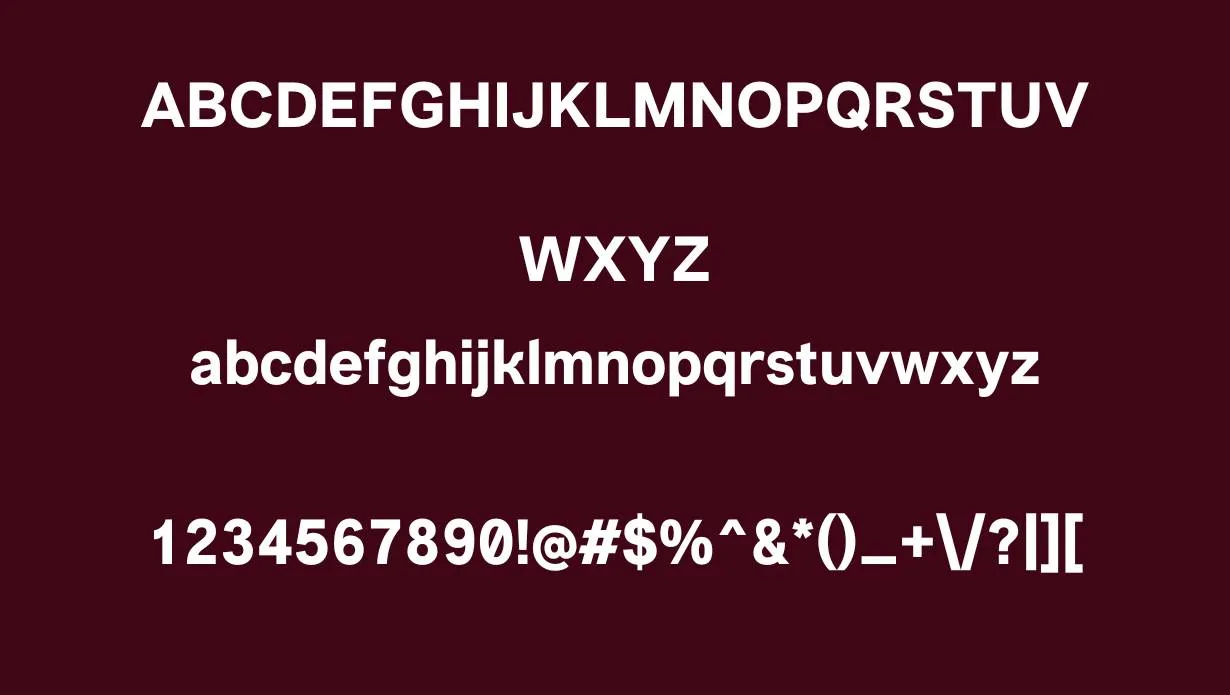
The Vremena Grotesk Font takes inspiration from traditional grotesque typefaces, presenting a flexible and easy-to-read design.
Its well-proportioned letterforms and clean lines make it suitable for editorial design, branding, and various design projects where clarity and simplicity are key.